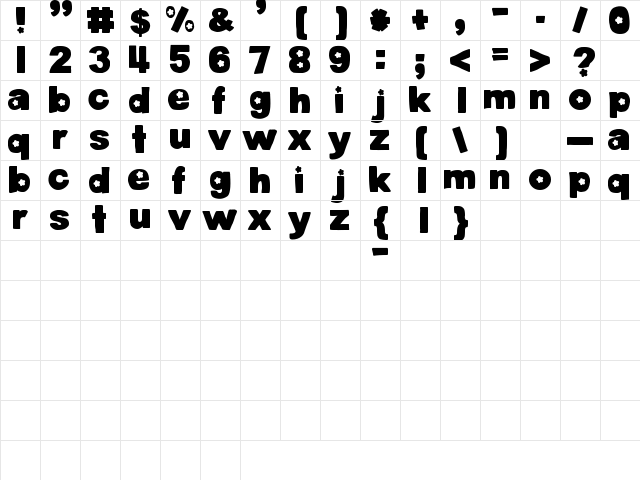
DJB Cutouts-Flowers Bold
Designer: Darcy Baldwin (djbfontography)
Design Context for DJB Cutouts-Flowers
DJB Cutouts-Flowers is a composed and adaptable typeface that performs quietly and consistently across a wide range of design contexts. Its bold stroke weight gives it real presence on the page.